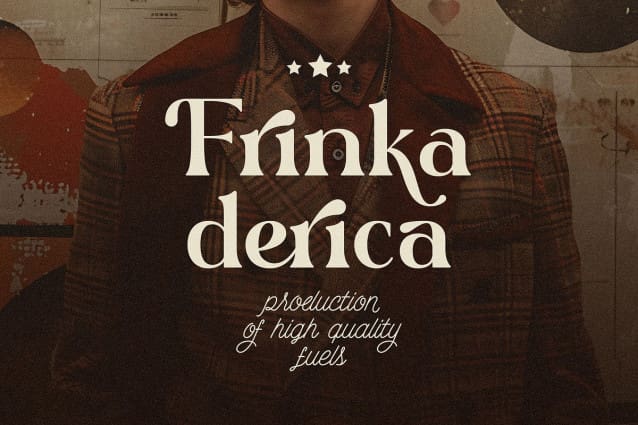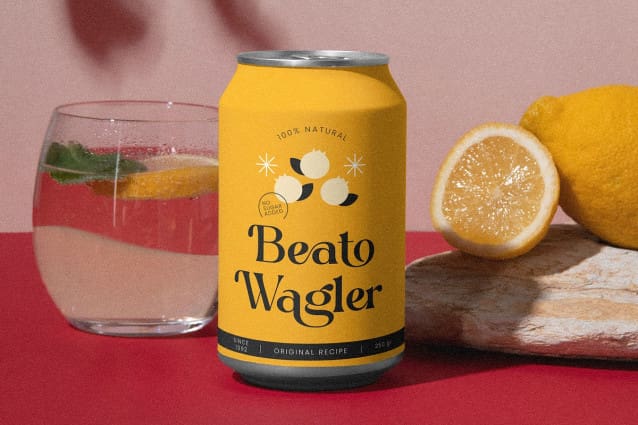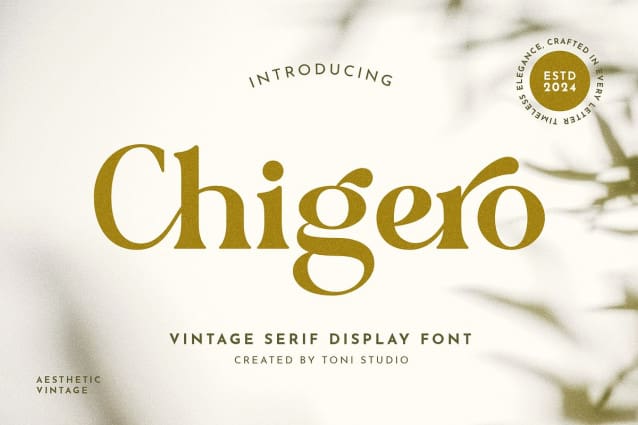
Chigero Font
Chigero Font, which is a bold retro font with lots of alternative glyphs, for your new fancy project. This font is perfect for fun retro and vintage designs. Perfect for modern and classy branding projects. Many alternatives and binders will help you create a unique website logo or header design and more! Use this font and let your creativity shine!!